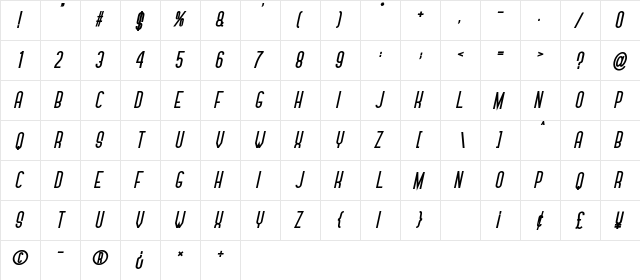
Forever Together Sans Bold Italic
| Designer | Lettersiro 2018 |
Design Context for Forever Together Sans Typeface
Forever Together Sans is a composed and adaptable typeface that performs quietly and consistently across a wide range of design contexts. The slanted form adds forward momentum and visual energy. The heavy weight commands attention and anchors typographic hierarchies.